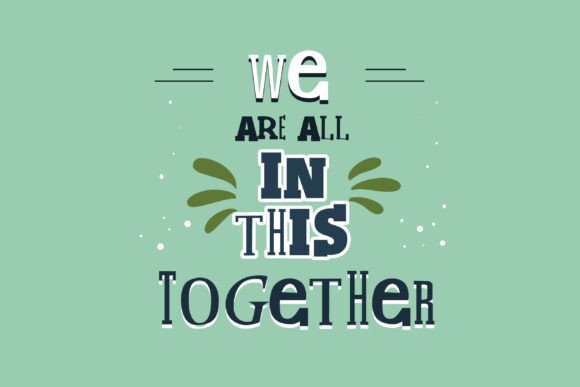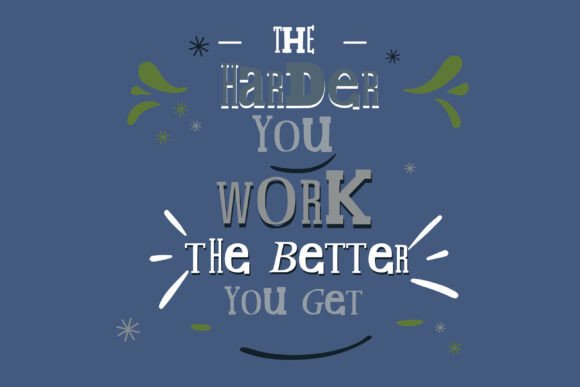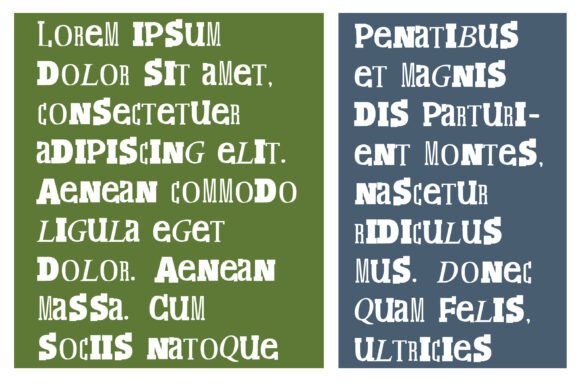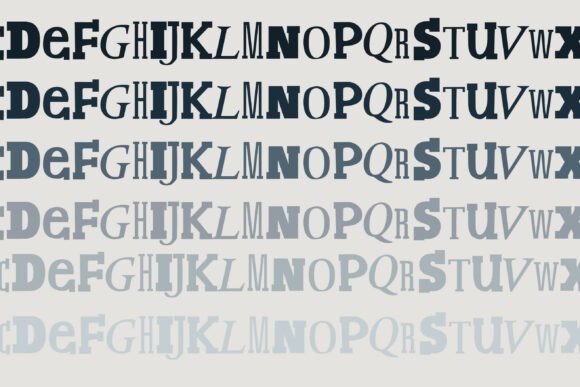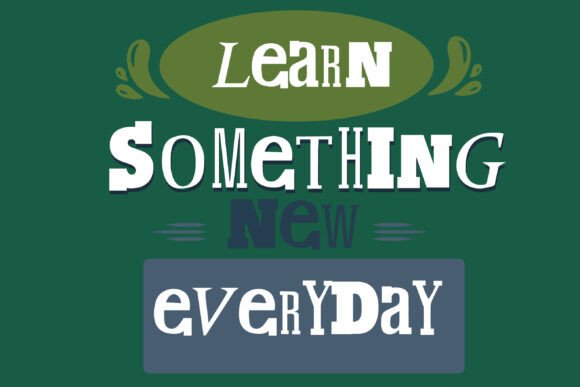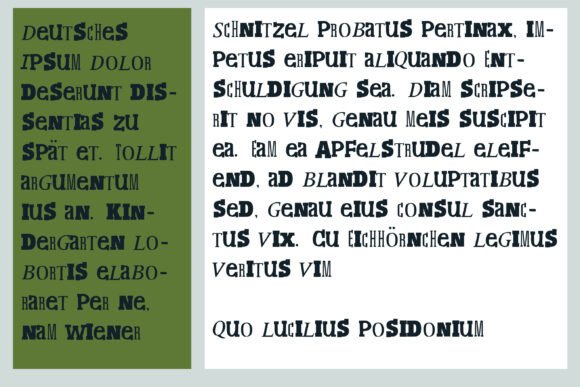
Unleash the Wild Side of Your Designs with Amazonian Font
Are you tired of using the same old fonts in your designs? Do you want to add a touch of adventure and playfulness to your branding, posters, or nature-themed projects? Look no further than the Amazonian Font, a bold and eclectic crafty serif font that’s inspired by the wild energy of the jungle.
The Inspiration Behind Amazonian Font
The Amazonian Font is a unique and eye-catching typeface that’s designed to capture the essence of the Amazon rainforest. With its mix of character styles and playful quirks, this font is perfect for designers and crafters who want to add a touch of whimsy and excitement to their work. Whether you’re creating a logo for a outdoor gear company, designing a poster for a music festival, or crafting a brand identity for a eco-friendly product, the Amazonian Font is sure to make a statement.
Key Features of Amazonian Font
- Bold and Eclectic Design: The Amazonian Font features a bold and eclectic design that’s perfect for making a statement. Its unique character styles and playful quirks add a touch of personality to any design.
- Crafty Serif Style: The font’s crafty serif style gives it a handmade feel that’s perfect for crafters and designers who want to add a touch of warmth and personality to their work.
- Mix of Character Styles: The Amazonian Font features a mix of character styles, including bold and italic versions, to give you maximum flexibility and creativity.
- Playful Quirks: The font’s playful quirks, such as its irregular shapes and imperfect lines, add a touch of whimsy and fun to any design.
Perfect for Adventurous Branding and Designs
The Amazonian Font is perfect for designers and crafters who want to create adventurous and eye-catching branding, posters, and designs. Its bold and eclectic design makes it ideal for:
- Outdoor and Nature-Themed Designs: The font’s jungle-inspired design makes it perfect for outdoor and nature-themed designs, such as logos for outdoor gear companies, posters for hiking and camping trips, and branding for eco-friendly products.
- Music and Festival Posters: The Amazonian Font’s playful and eclectic design makes it perfect for music and festival posters, adding a touch of excitement and energy to your designs.
- Branding and Packaging: The font’s bold and crafty design makes it perfect for branding and packaging, adding a touch of personality and whimsy to your products.
Tips for Using Amazonian Font
Here are some tips for using the Amazonian Font in your designs:
- Use it as a Headline Font: The Amazonian Font is perfect for use as a headline font, adding a touch of excitement and energy to your designs.
- Experiment with Different Colors: The font’s bold and eclectic design makes it perfect for experimenting with different colors and textures, adding depth and interest to your designs.
- Pair it with Other Fonts: The Amazonian Font can be paired with other fonts to create a unique and eye-catching design, such as a sans-serif font for body text.
The Amazonian Font is a unique and eye-catching typeface that’s perfect for designers and crafters who want to add a touch of adventure and playfulness to their work. With its bold and eclectic design, crafty serif style, and mix of character styles and playful quirks, this font is sure to make a statement in any design. Whether you’re creating a logo, poster, or branding identity, the Amazonian Font is the perfect choice for adventurous and creative designs.